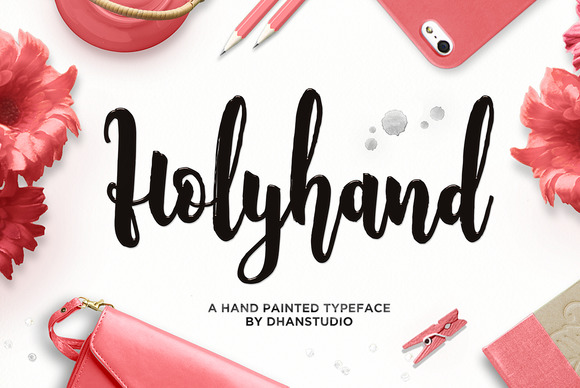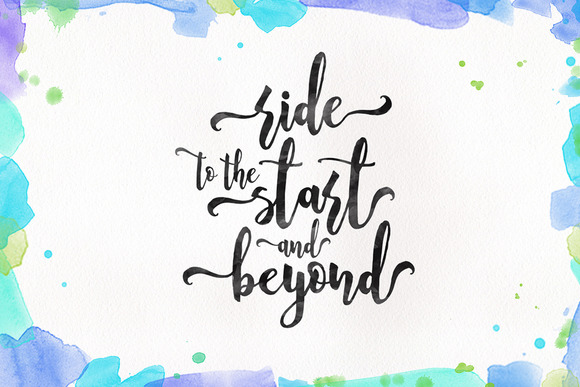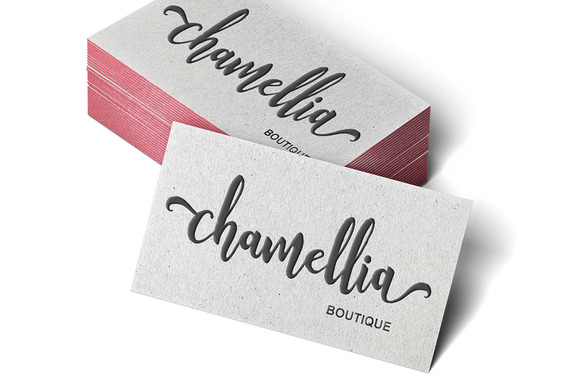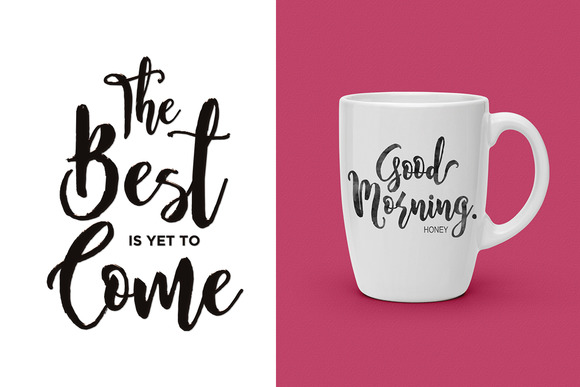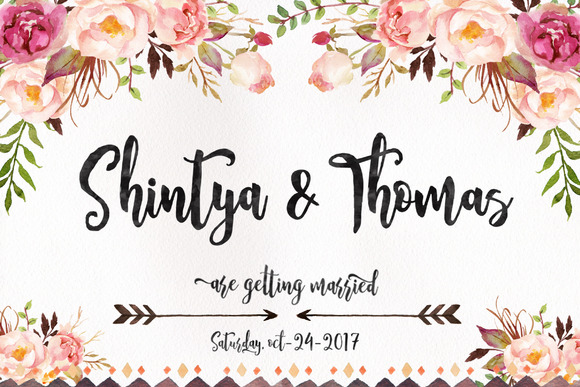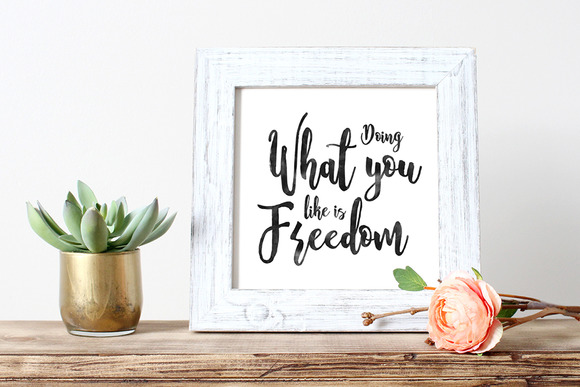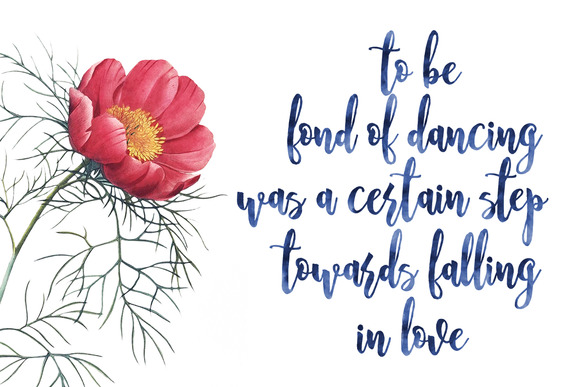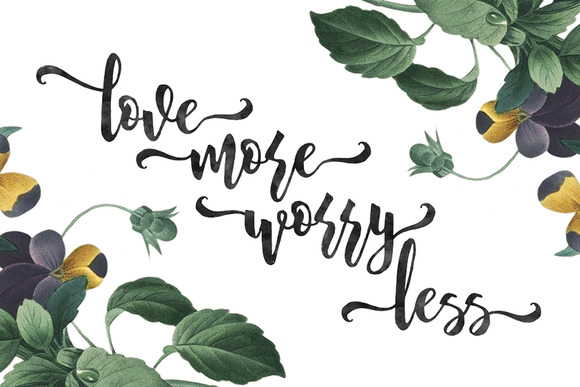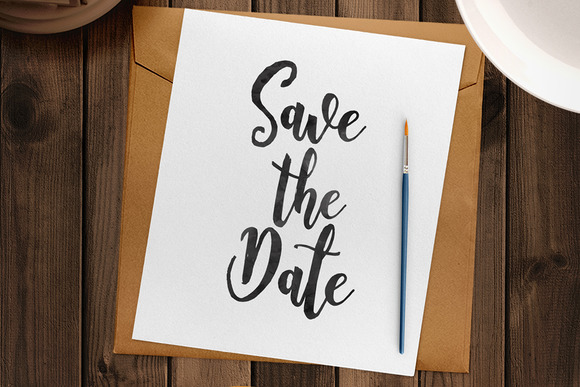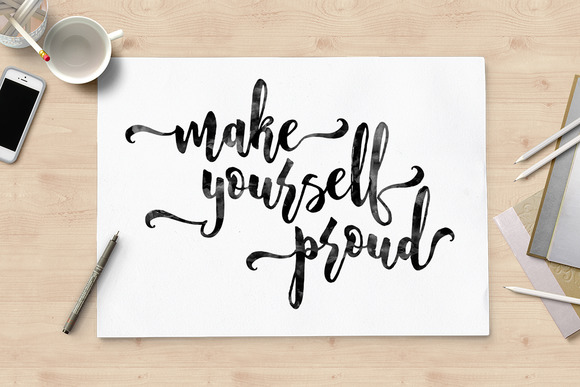
Holyhand Font
About Holyhand Font
Holyhand Script is a beautifully hand-painted typeface. It can be used for various purposes such as headings, logos, invitations, t-shirt designs, greeting cards, posters, labels, book covers, brochures, and much more!